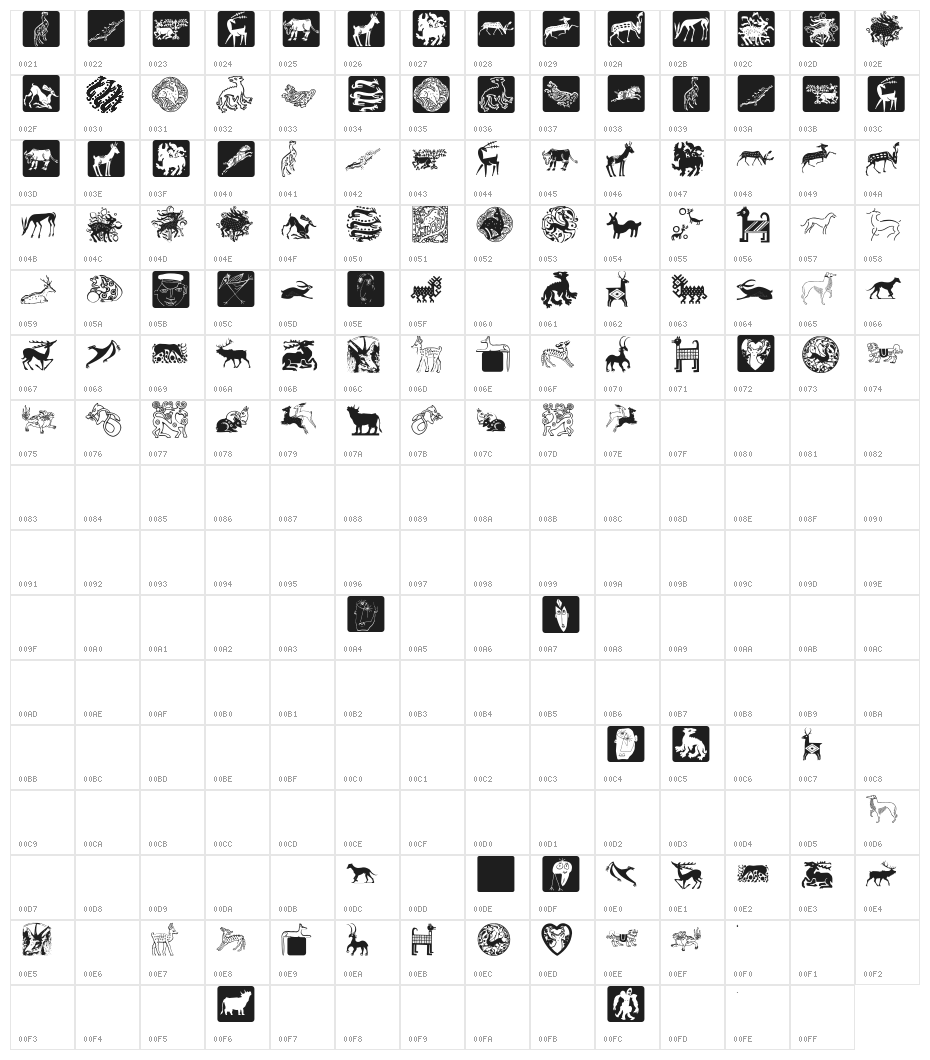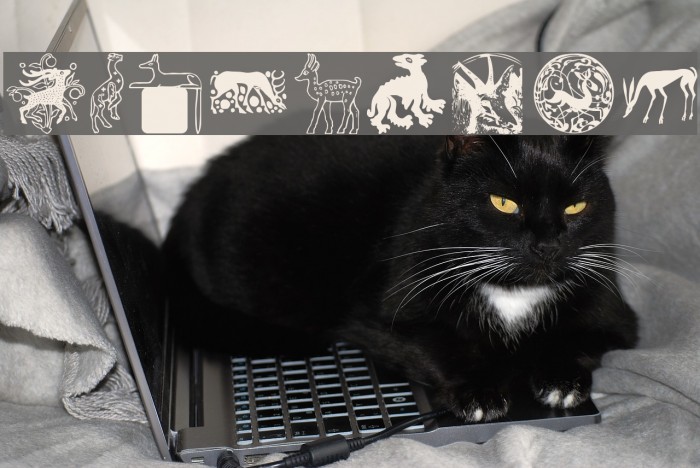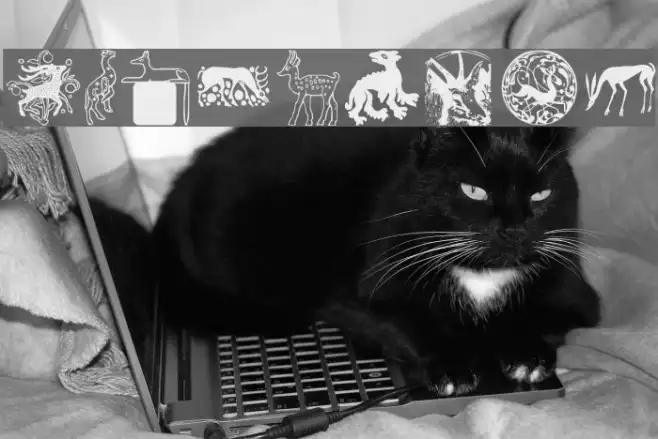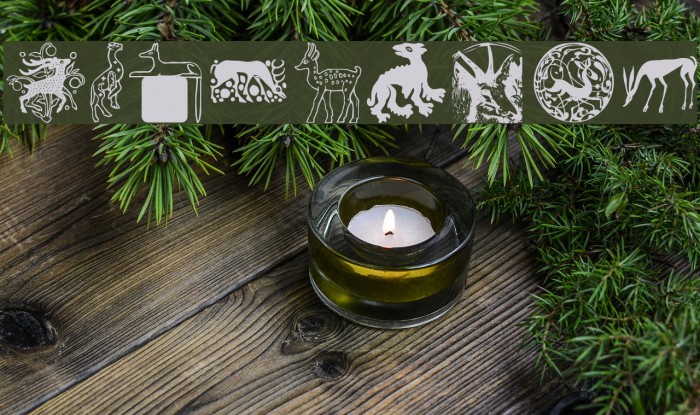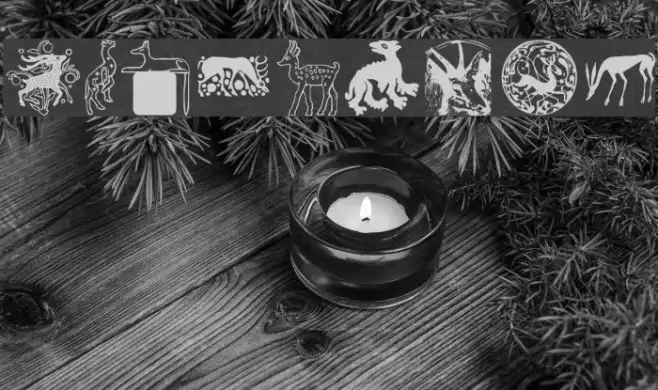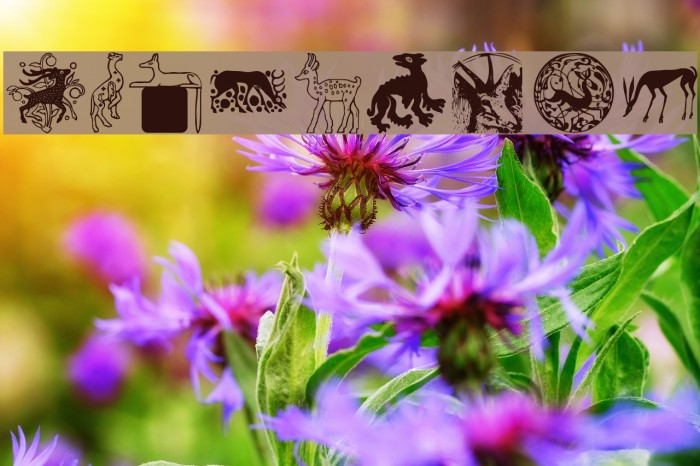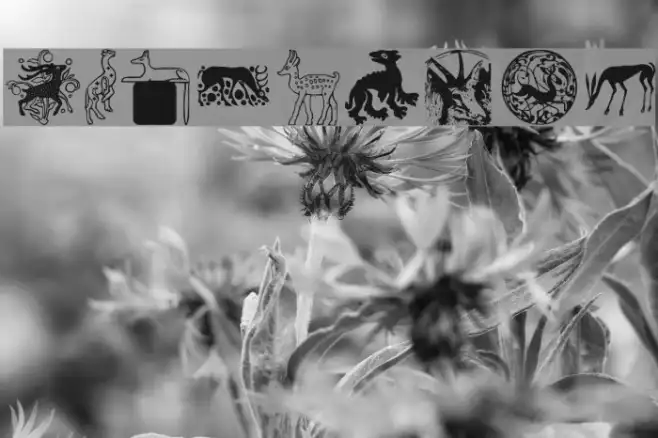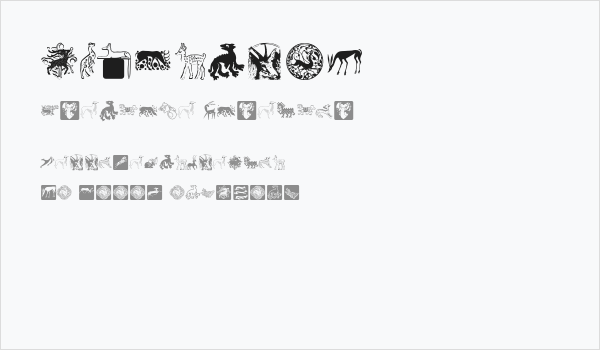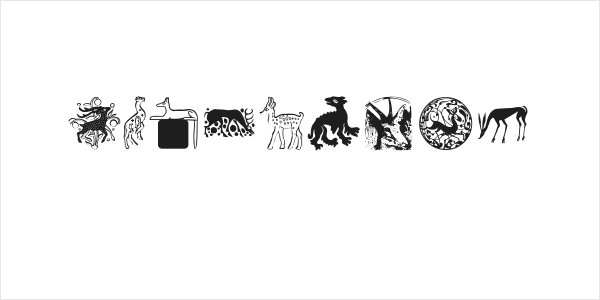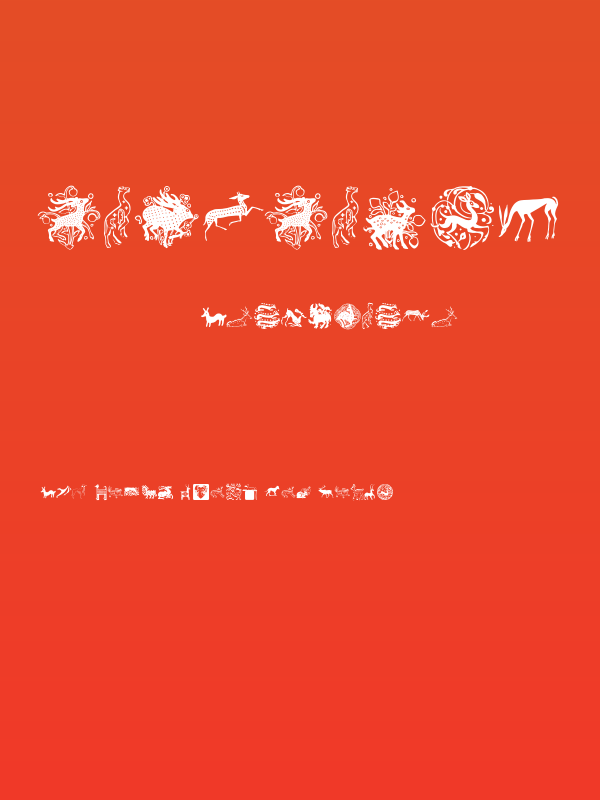
MAnimalsK Font
MAnimalsK Description
A decorative dingbat font featuring a variety of stylized animal illustrations inspired by ancient and tribal art, with each character representing a unique animal or scene in black and white, some within geometric shapes or frames.
| Overall Style | Decorative, Ancient, Tribal |
| Use Case | Illustrative elements, Themed graphics, Logos, Posters |
| Proposed Projects | Educational materials, themed posters, museum signage, children's books, cultural event branding. |